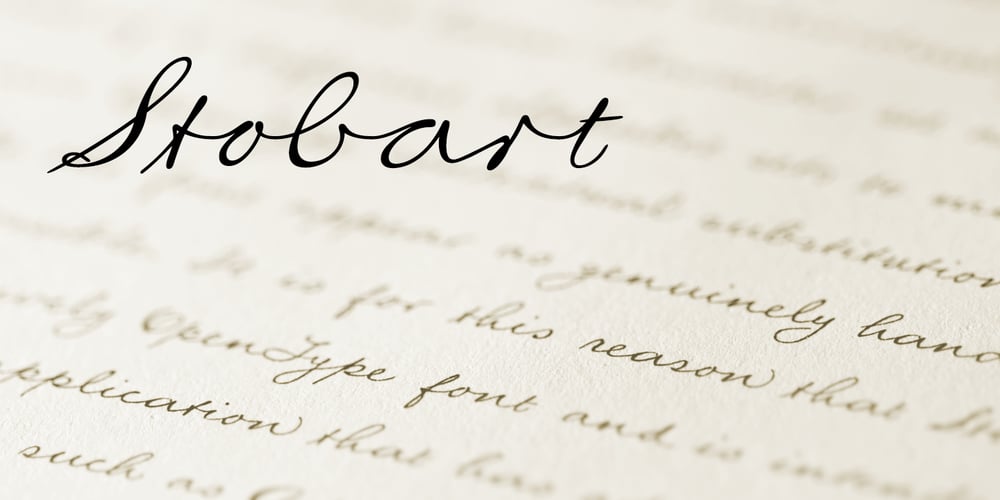
Stobart Font Family was designed by Ben Jones and published by Protimient. Stobart contains 1 styles and family package options. Stobart is a script font based on the characters written in a letter by Mr Henry Stobart, dated 1899. It contains over 1200 individual glyphs, supports the extended latin character set and includes a total of 8 different alphabet sets to make up the extensive OpenType contextual substitution needed to make the font appear as genuinely handwritten as possible. It is for this reason that Stobart is an exclusively OpenType font and is intended for use in an application that has advanced OpenType support, although it should be said that the font will work (as in appear) in any application on any operating system that supports the OpenType font format, albeit without all those delightful features that make it a connected script.